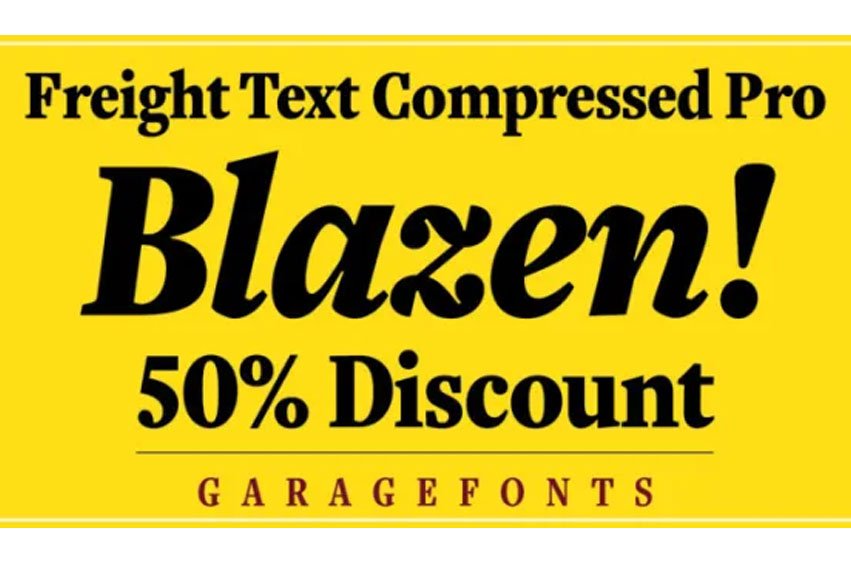
Freight Text Cmp Pro Font
Freight Text Cmp Pro Font is designed for text, display, magazines, newspapers, schedules, manuals, catalogs, cookbooks or wherever you have extended reading in periodicals and data-intensive documents.